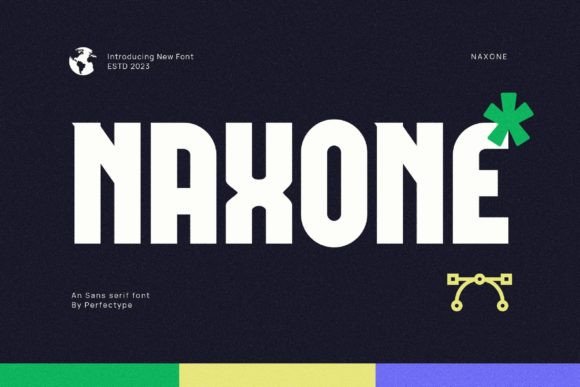
Unleash the cinematic charm of your designs with Naxone Font, the ultimate font family for film titles that exudes symmetry and balance. Crafted by the renowned Perfectype, this font is a symphony of inspiration, meticulously designed with precise proportions, subtle contours, and delicate contrasts.
Indulge in the allure of Naxone's captivating shapes, striking the perfect balance between elegance and minimalism. Each glyph is a testament to the font's versatility, seamlessly blending into any graphic design project, from brochures and magazines to videos and posters.
Let Naxone's timeless appeal elevate your branding, creating logos that resonate with sophistication and style. Its graceful curves and sharp angles command attention, ensuring your designs leave a lasting impression.
As a versatile chameleon in the world of fonts, Naxone effortlessly adapts to various creative endeavors. Whether you're crafting eye-catching advertisements, designing captivating layouts, or creating immersive games, Naxone is your trusted companion.
Unlock the limitless potential of Naxone Font and transform your designs into cinematic masterpieces. Its versatility and elegance will captivate audiences, leaving them spellbound by your creative vision.